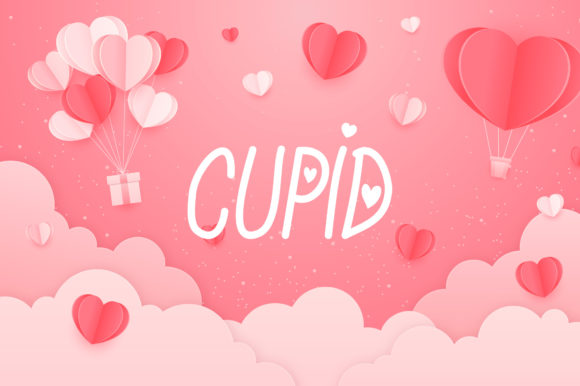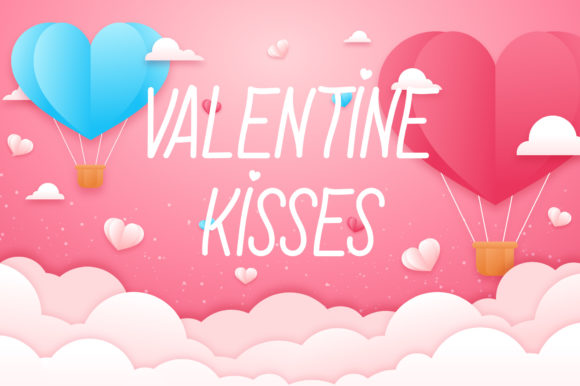
Valentines Love Font
Valentines Love Font is a cool and adaptable display font. This font is suitable for designs such as t-shirts, sportswear, posters, logos, advertisements, clothing, and more.
Valentines Love Font is a cool and adaptable display font. This font is suitable for designs such as t-shirts, sportswear, posters, logos, advertisements, clothing, and more. Whatever the topic, this font will be a great asset to your font collection, as it has the potential to enhance any creation.